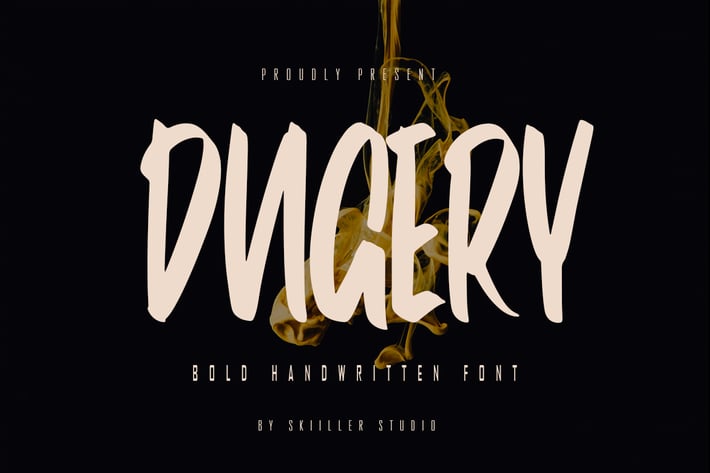
Dugery - Bold Handwritten Font
Dugery Handwritten Display Font. It looks beautiful on a variety of designs requiring a personalized style, such as wedding invitations, thank you cards, weddings, greeting cards, logos and so on. This font is PUA encoded which means you can access all of the glyphs and swashes with ease!